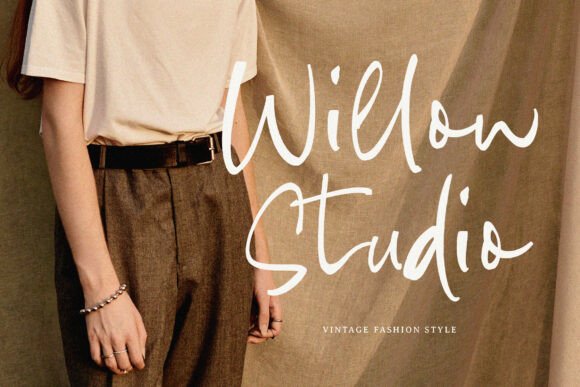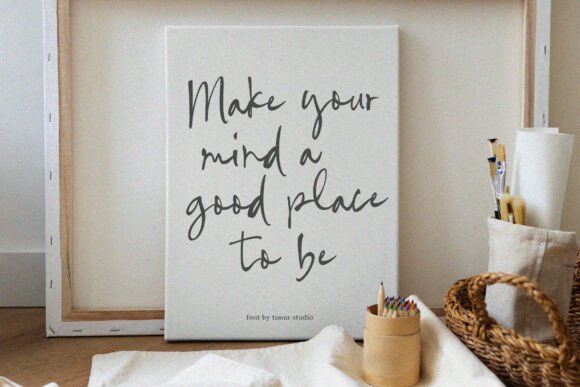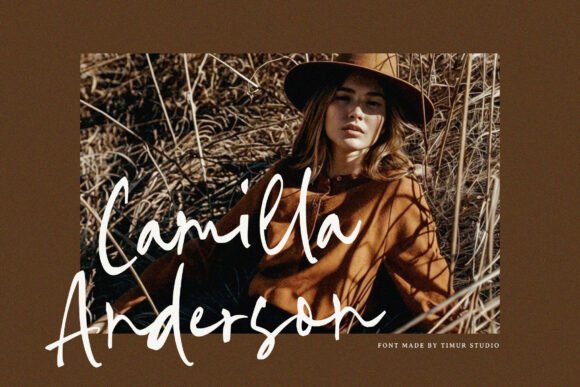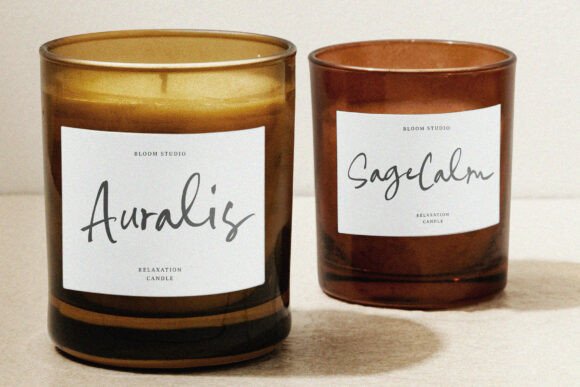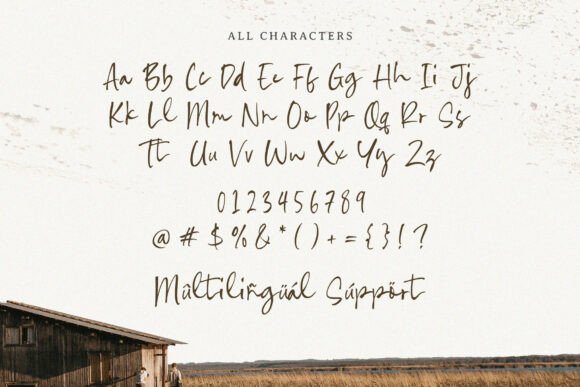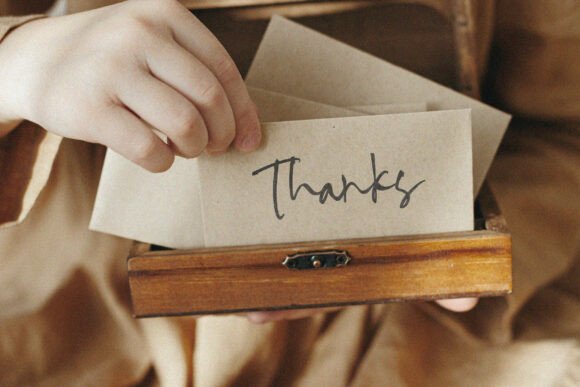
Unleash Your Creativity with Barton Miles Font
Remember that moment when you picked up a pen and paper, and the words just flowed effortlessly onto the page? The strokes were bold, the lines were imperfect, and the result was a true reflection of your personality. That’s the magic of handwritten script fonts, and Barton Miles Font is the perfect embodiment of it.
Introducing Barton Miles Font, a rough handwritten script font that captures the raw energy of natural pen strokes. With its textured edges and imperfect lines, it brings an authentic, expressive feel to your designs. Whether you’re a designer seeking a bold, personal touch or an artist looking for a unique voice, Barton Miles Font is the perfect companion to enhance your creative vision.
What sets Barton Miles Font apart is its versatility and support for multilingualism, making it an invaluable asset for designers who work with diverse languages and cultures.
Barton Miles Font Key Features
- Unique Characteristics: This font has a distinctive, hand-drawn look with elegant lines and subtle imperfections, giving it a unique and personal touch.
- Font Style: Script, Calligraphy
- Language Support: Multilingual support, including Latin, Cyrillic, Greek, and more
Barton Miles Font Review
When I first saw the Barton Miles Font, I was immediately drawn to its unique blend of modern and vintage elements. The font has a ✨ distinct personality that can add a touch of sophistication to any design project. One of the things that works well with this font is its versatility. It’s suitable for both digital and print applications, making it a great choice for designers who need a font that can adapt to different mediums.
Another ✨ strength of the Barton Miles Font is its legibility. The font is easy to read, even at smaller font sizes, which makes it perfect for body text or headings. The font also has a good balance of x-height and line spacing, making it easy on the eyes.
While the Barton Miles Font has many strengths, it’s not without its limitations. One of the main ⚠️ concerns is its limited character set. The font only includes a limited number of characters, which can make it difficult to use for languages that require a large character set. Additionally, the font’s unique design can be a bit ⚠️ overbearing in some cases, making it difficult to pair with other fonts.
Overall, I think the Barton Miles Font is a great addition to any designer’s toolkit. Its unique blend of modern and vintage elements makes it a great choice for designers who want to add some personality to their designs. However, its limited character set and potential for overbearing design make it less suitable for certain applications.
Recommendation
If you’re looking for a font that can add a touch of sophistication to your designs, I would definitely recommend checking out the Barton Miles Font. However, be aware of its limitations and make sure it’s the right fit for your project.
- Distinct personality with a blend of modern and vintage elements
- Versatile font suitable for digital and print applications
- Legible font with a good balance of x-height and line spacing
- Limited character set
- Potential for overbearing design
Tip: Use Barton Miles Font for headings and titles to add a touch of elegance to your designs.
Tip: Use Barton Miles Font to create custom typography and add a professional touch to your designs.
Tip: Use Barton Miles Font for headings and titles to add a touch of sophistication to your presentations and documents.
Barton Miles Font is ideal for:
- Book covers and publishing materials
- Event signage and promotional materials
Tip: Use Barton Miles Font to create a consistent and professional brand identity across all your marketing materials.